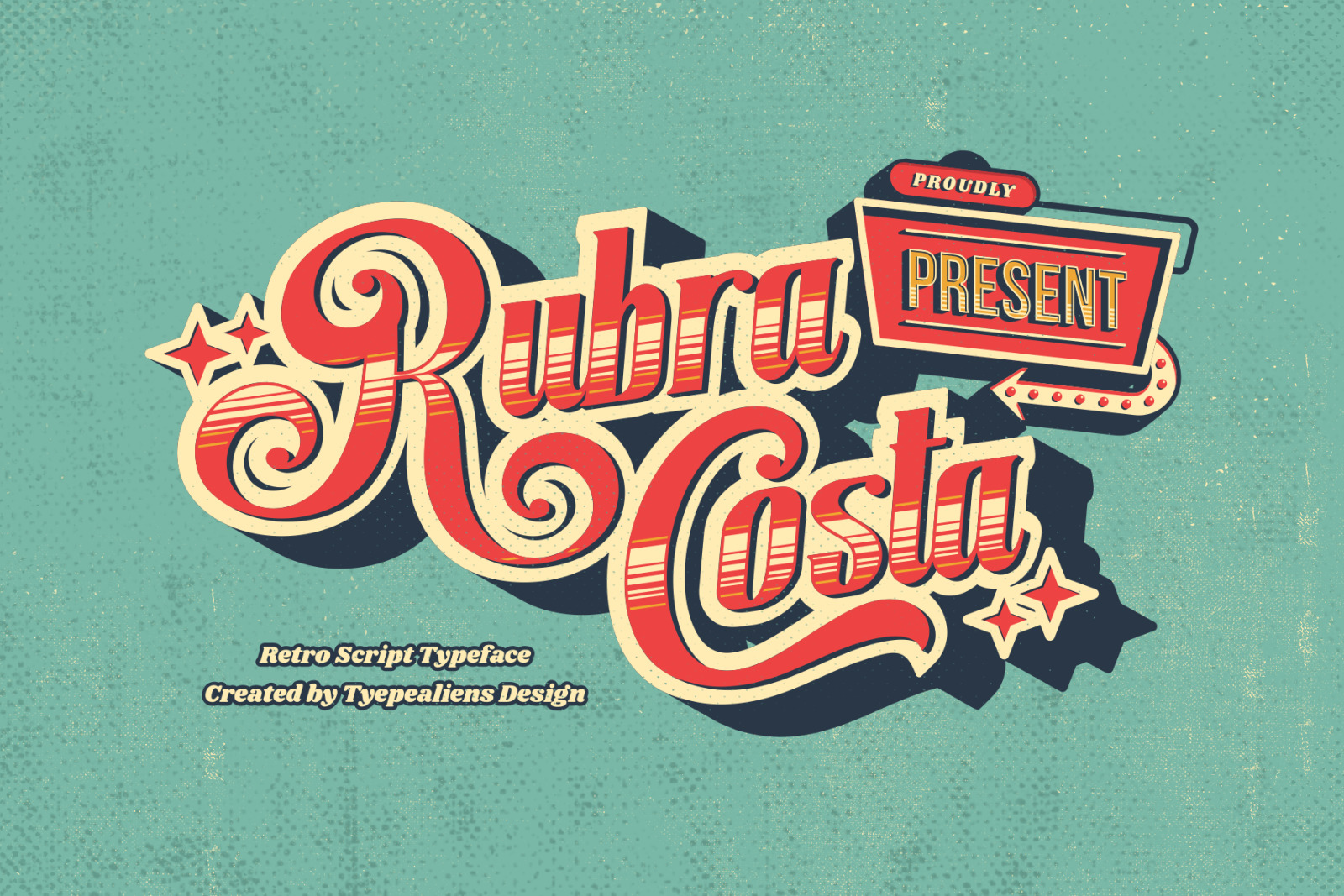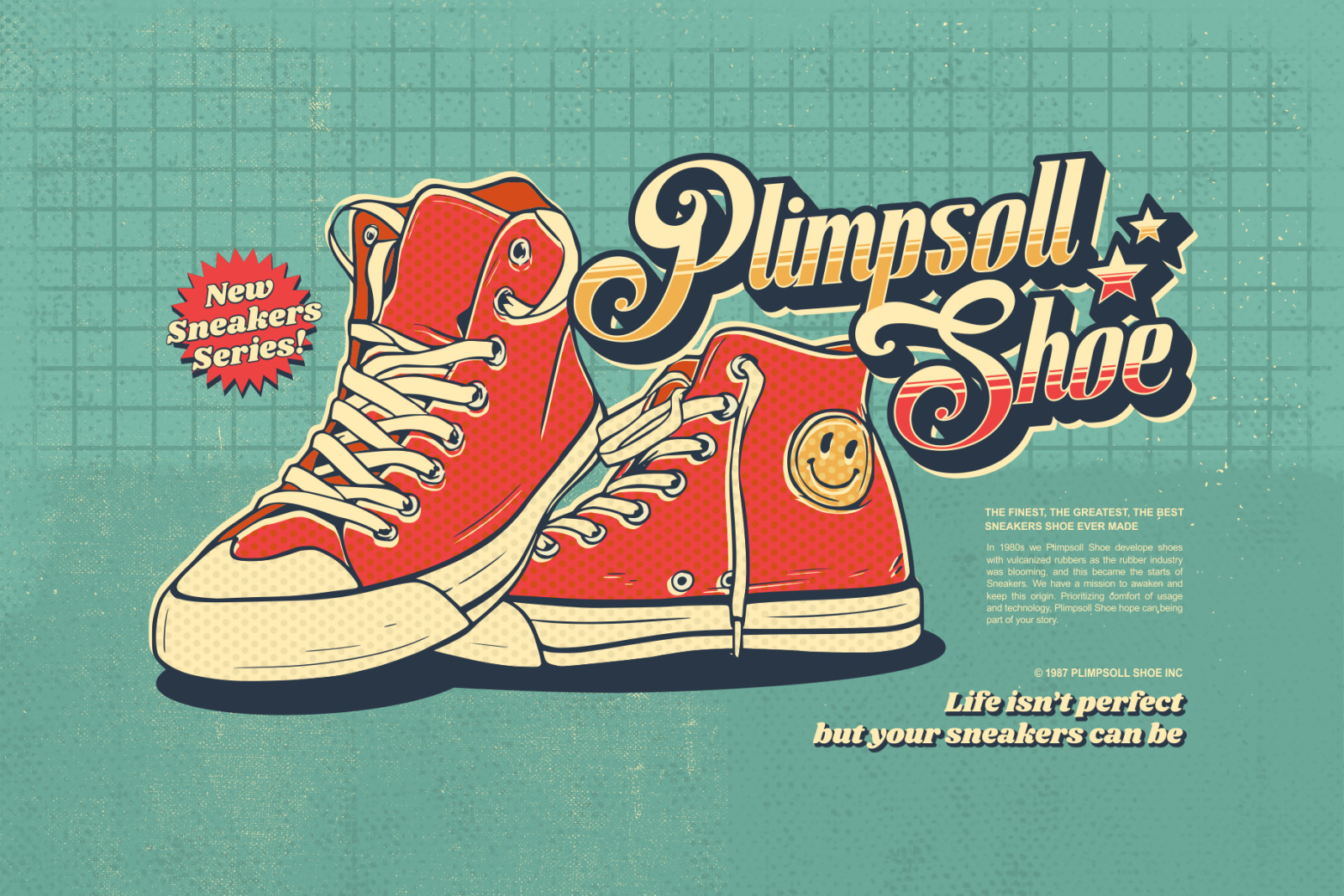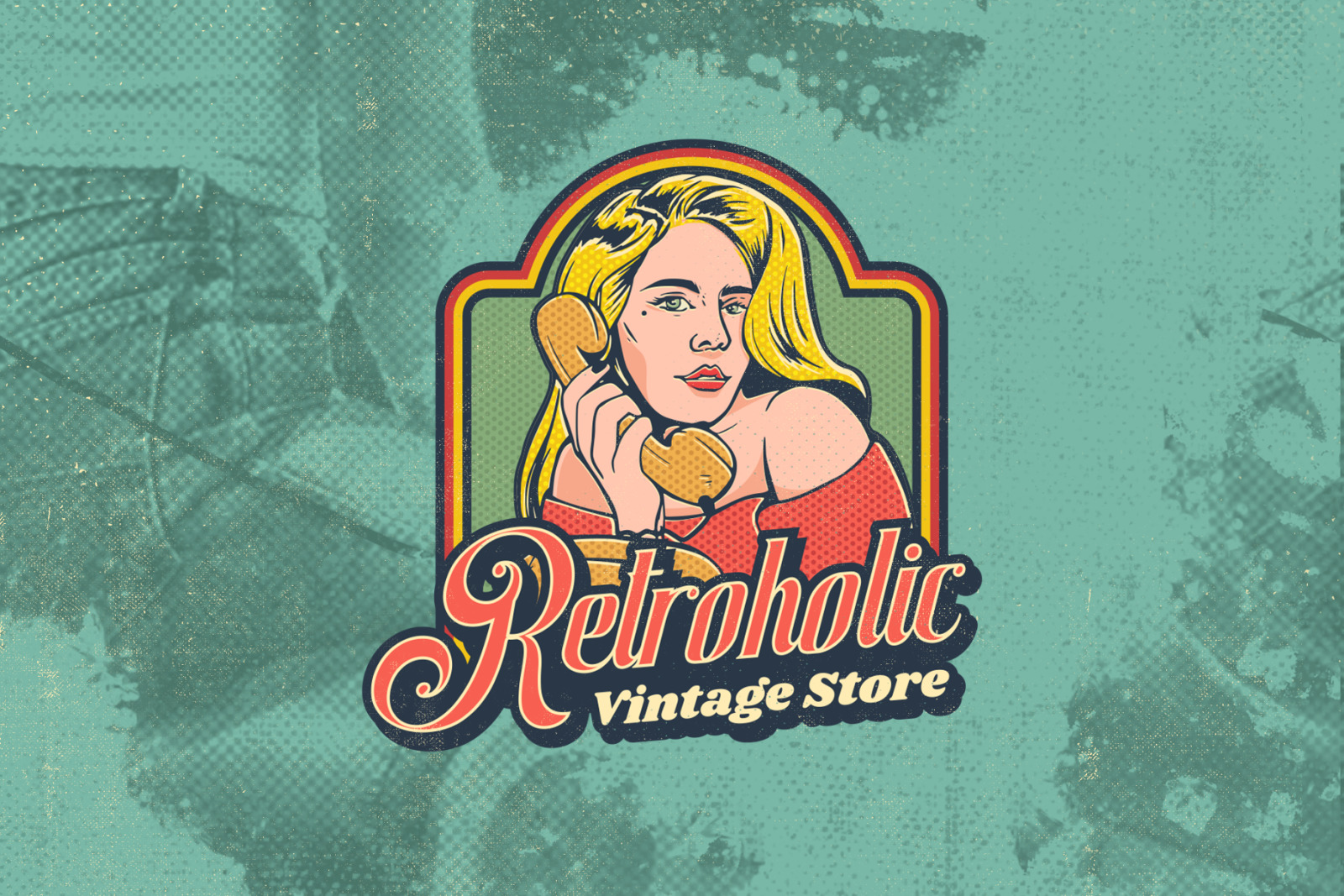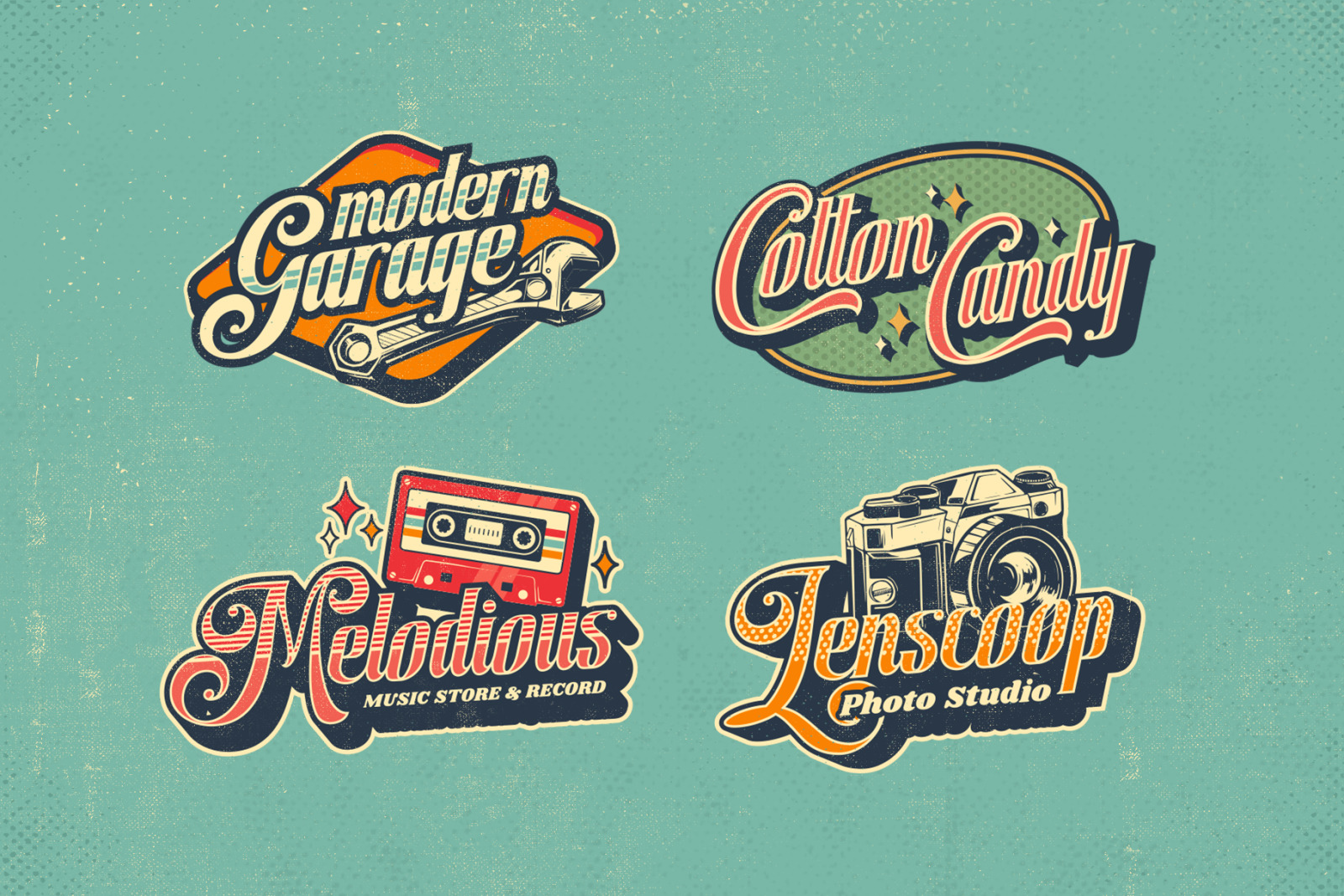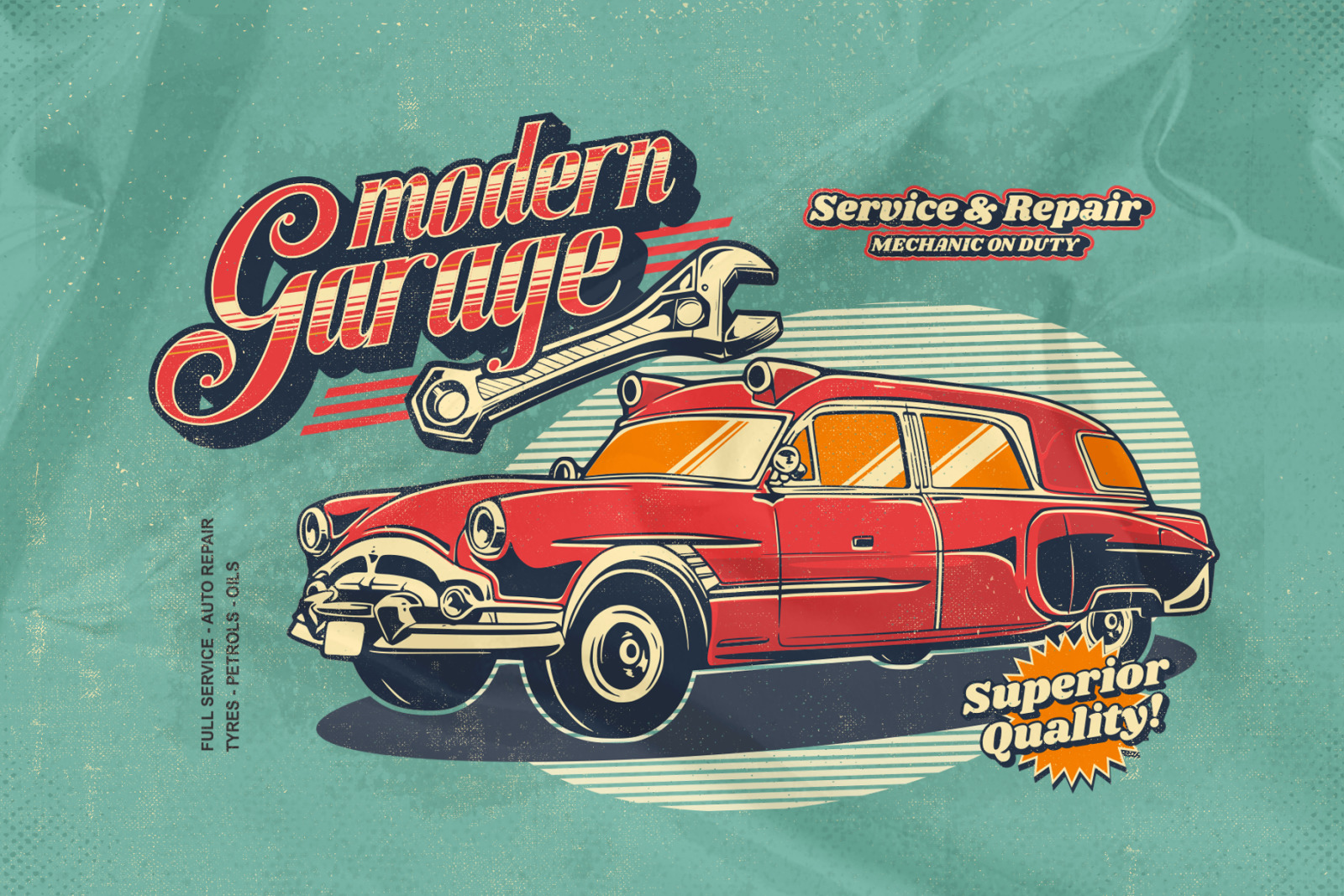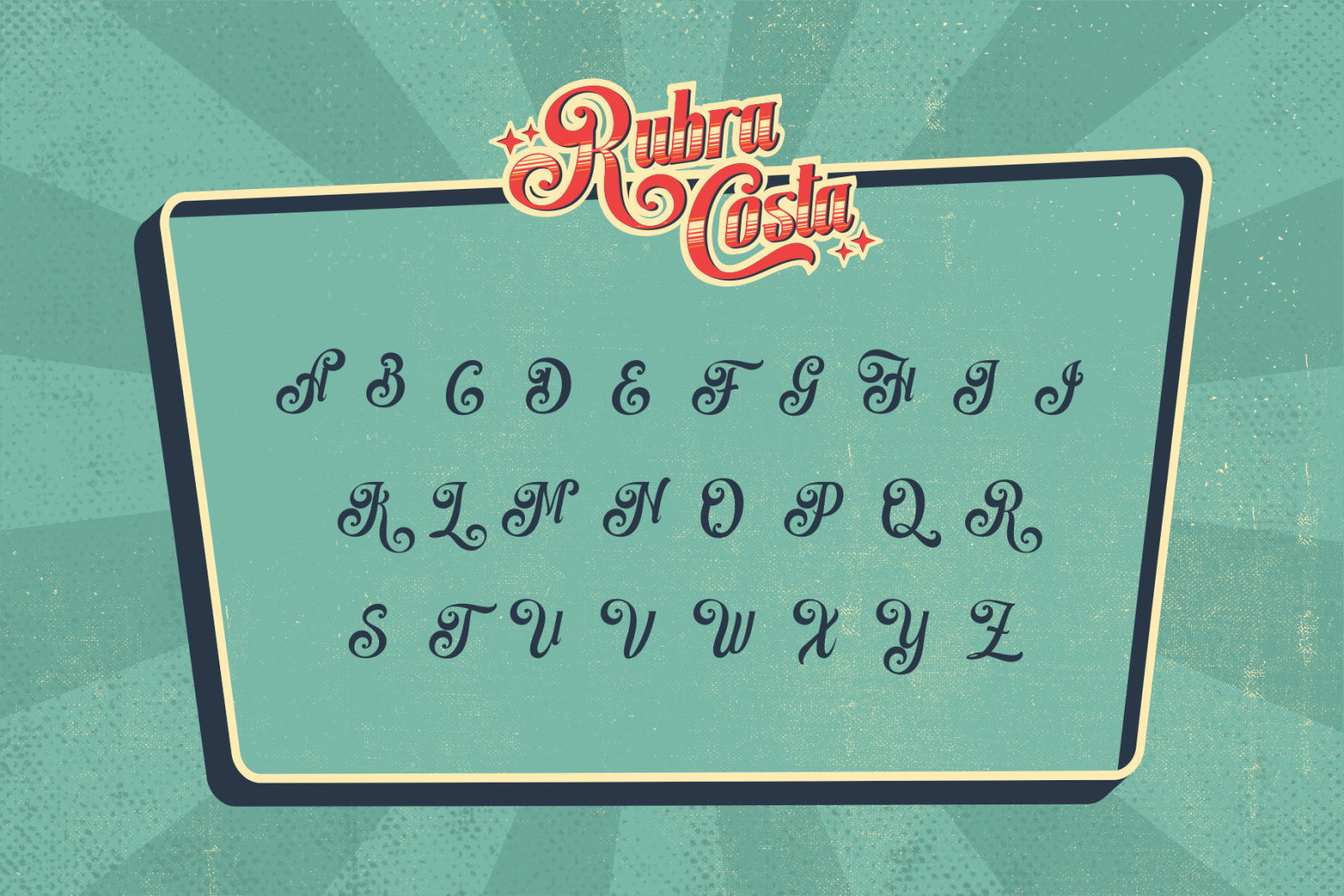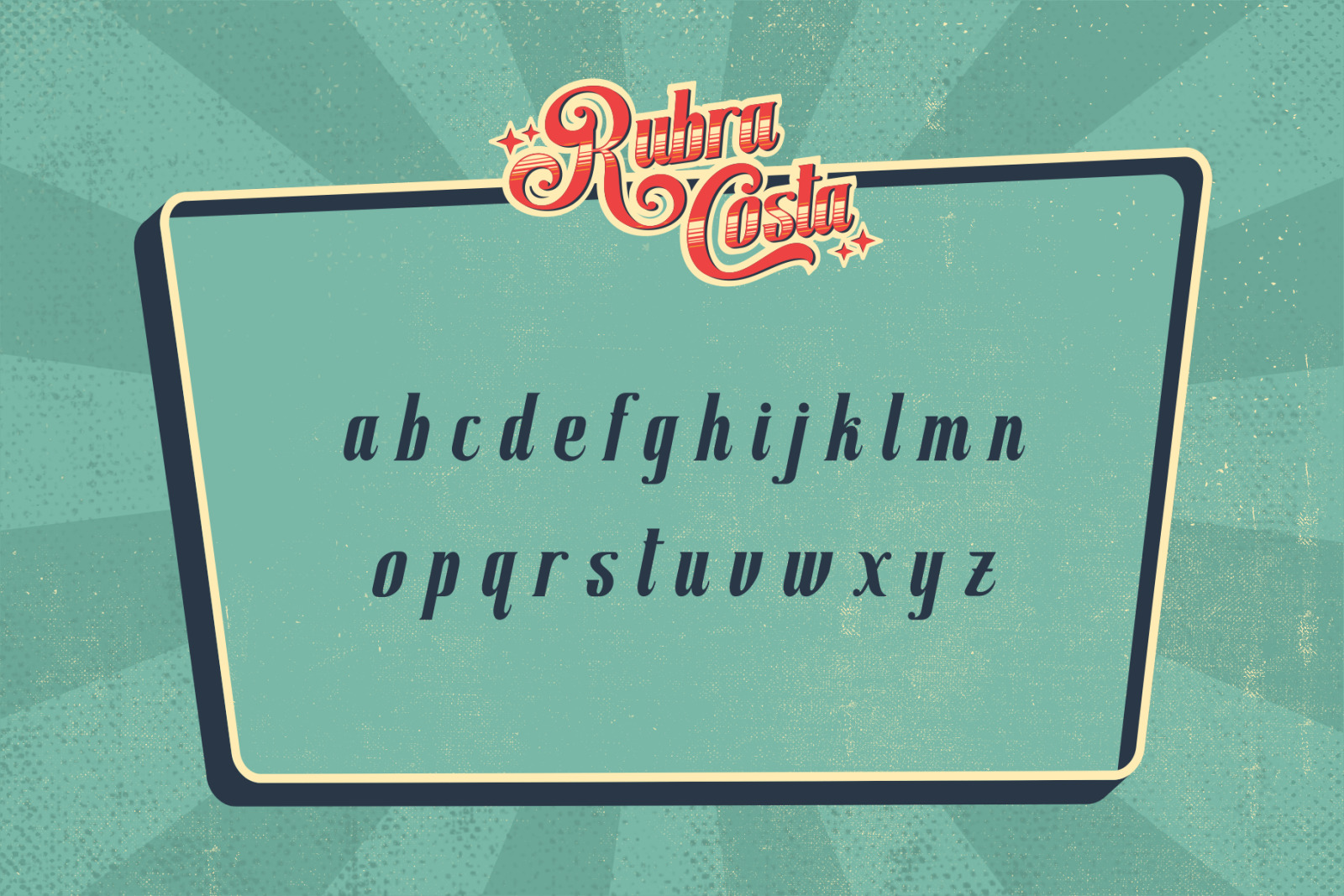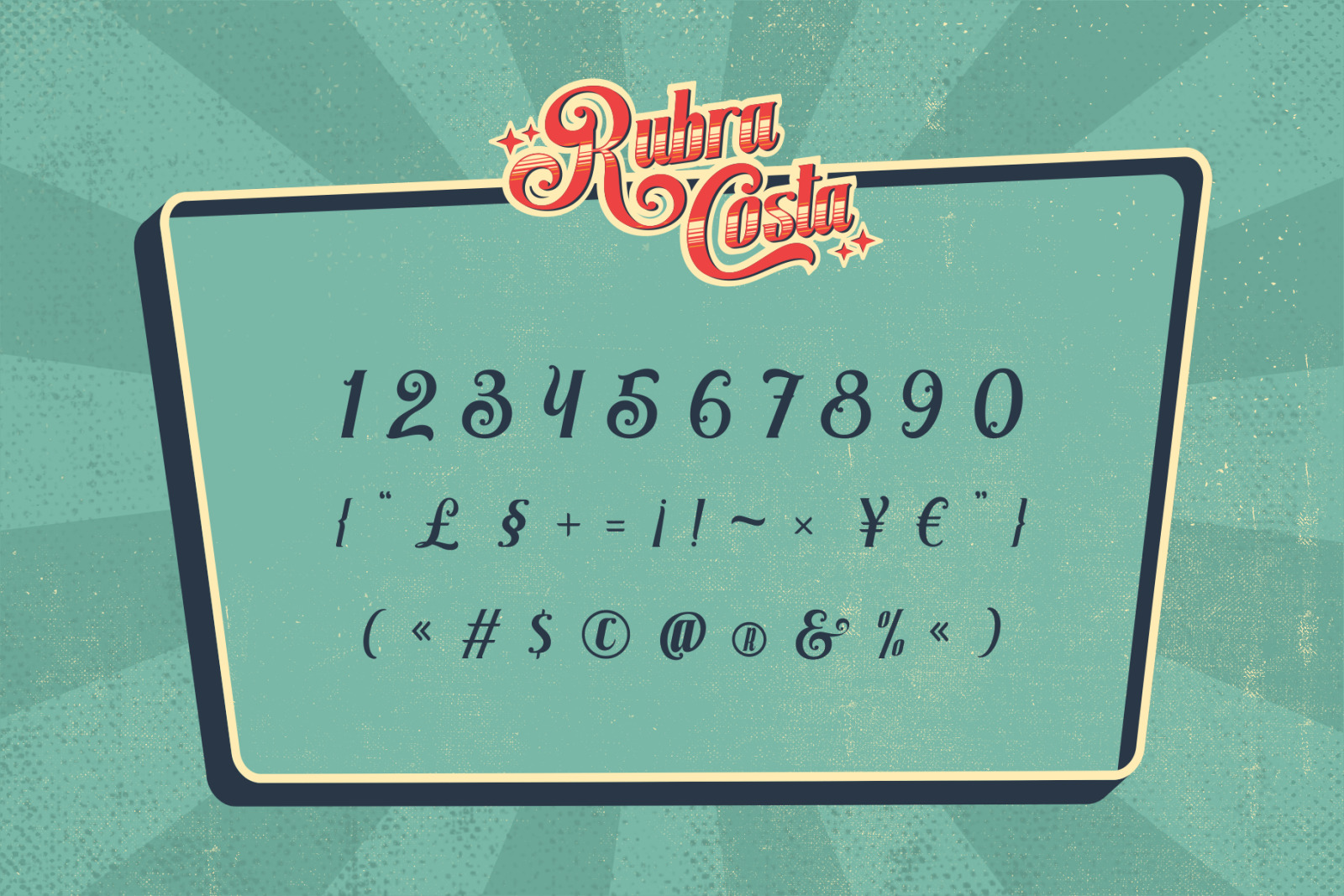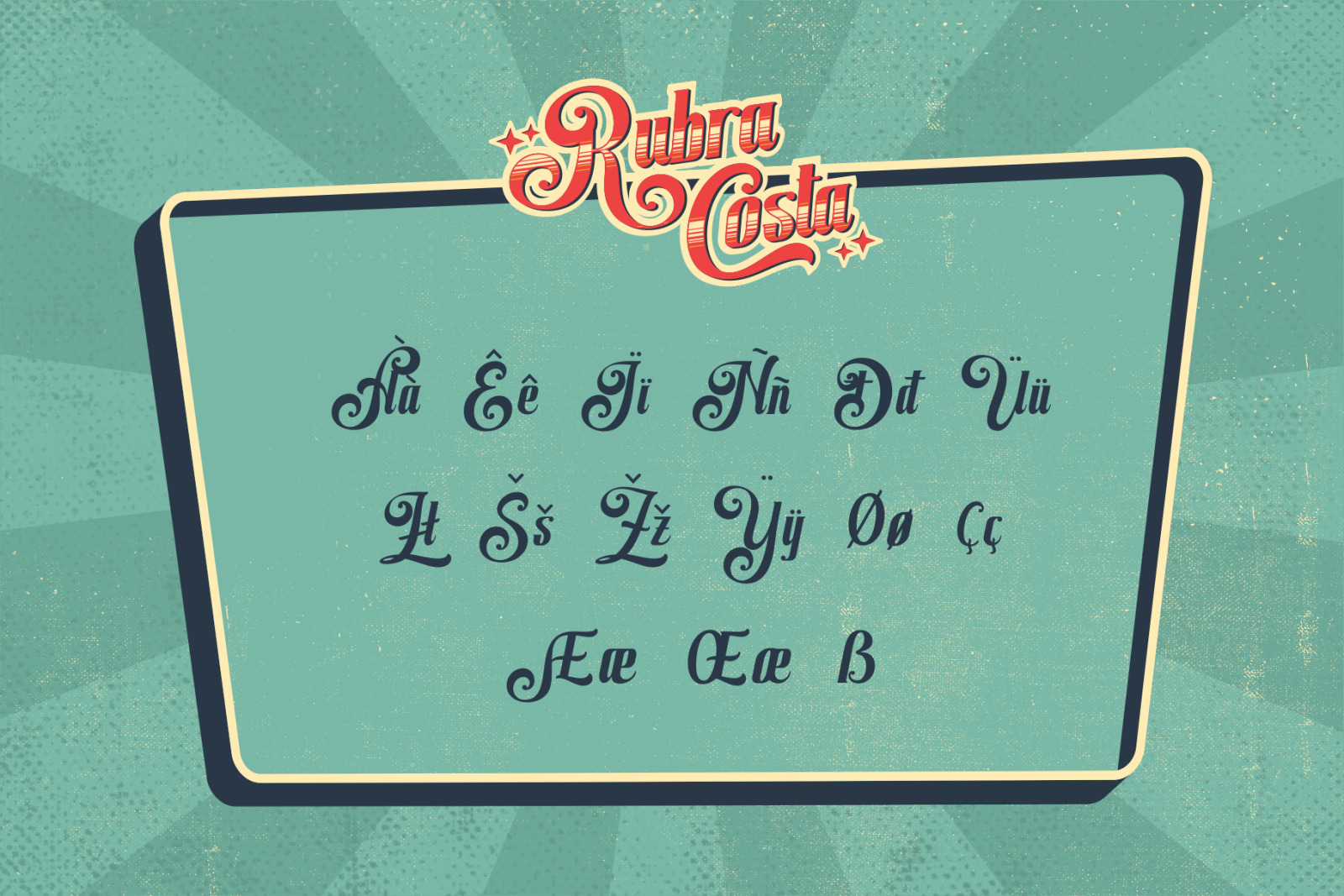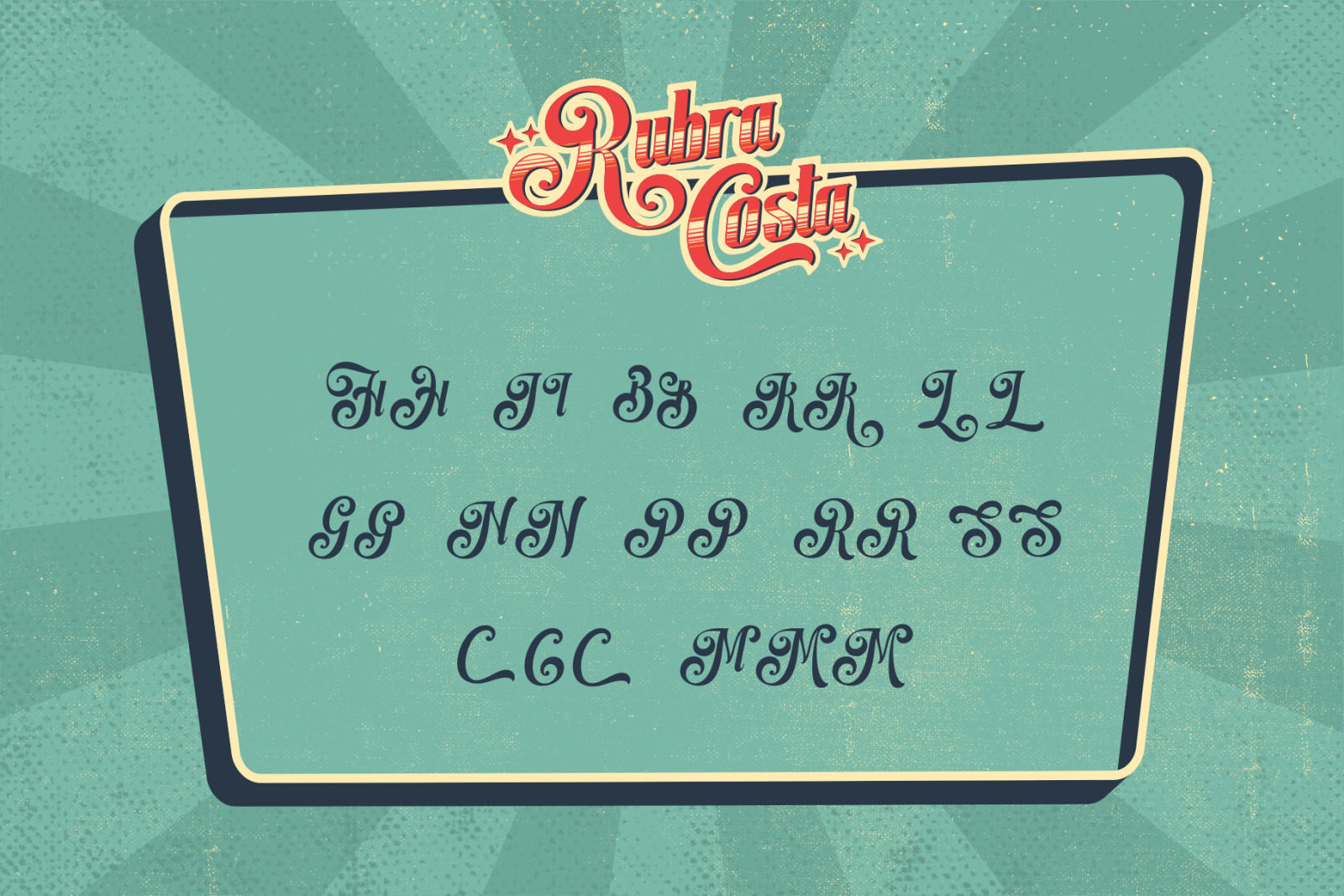
Rubra Costa Font
RUBRA COSTA is a font script that is quite thick, with a classic style that is elegant and attractive to support logo design, packaging, advertising on social media etc. The uppercase character has an ornamental style that is very beautiful for you to make as a title or headline or brand on your packaging design.
With some alternative characters as a sweetener in your arrangement of letters, we also give a bonus of a very cool classic illustration.